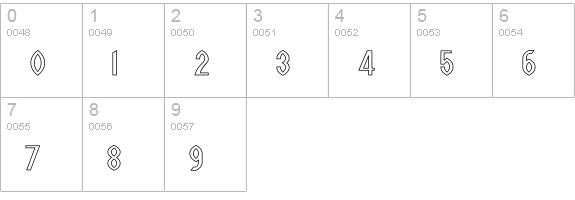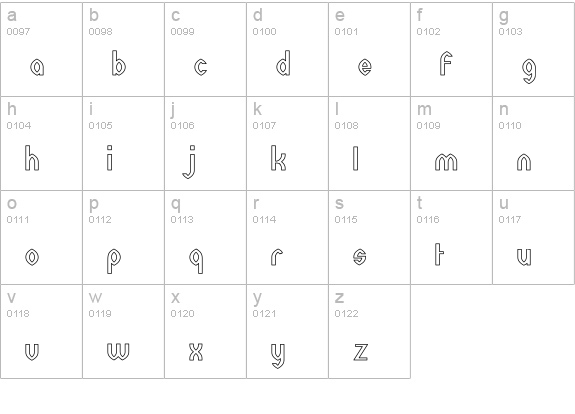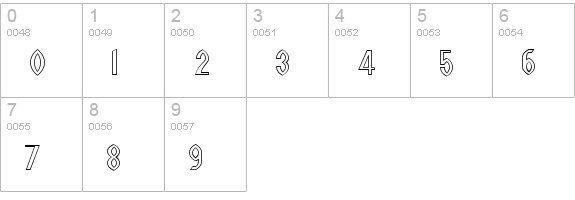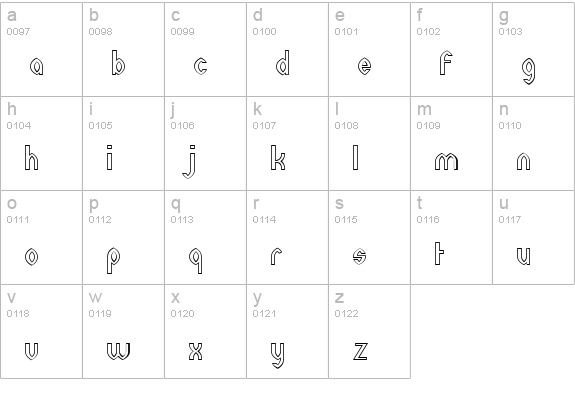
Wazoo Outline Font Details
Introducing Wazoo Outline font, a stunning display typeface that adds a touch of elegance and uniqueness to any design project. With its intricate lines and bold appearance, Wazoo Outline font effortlessly captures attention and leaves a lasting impression. This font is perfect for a wide range of applications, from logos and branding to headlines and posters. Its modern and sophisticated style makes it suitable for both digital and print projects, allowing your creativity to shine through. What sets Wazoo Outline font apart is not only its exceptional design but also its accessibility. Unlike many other fonts, Wazoo Outline font is available for free download at FontsMarket.com. This means that you can easily enhance your designs without breaking the bank. Downloading Wazoo Outline font from FontsMarket.com is a breeze. Simply visit the website, locate the font, and click the download button. Within seconds, you'll have this exquisite typeface at your fingertips, ready to be incorporated into your design projects. Whether you're a professional designer or a creative enthusiast, Wazoo Outline font will undoubtedly become a valuable asset in your font collection. Its versatility, attention-grabbing style, and the fact that it is freely available make it a must-have for anyone looking to elevate their designs. Don't miss out on the opportunity to enhance your artwork with the captivating Wazoo Outline font. Download it for free today at FontsMarket.com and let your creativity soar to new heights.